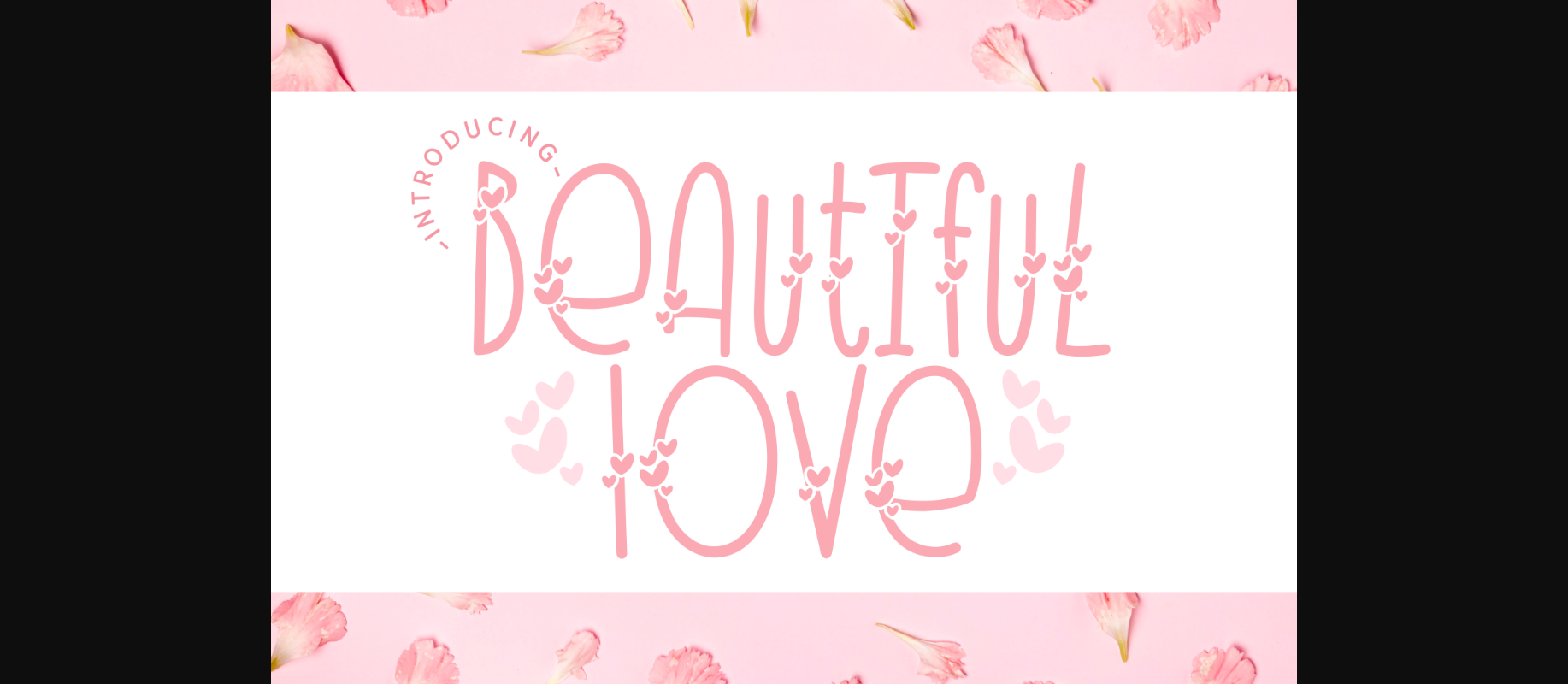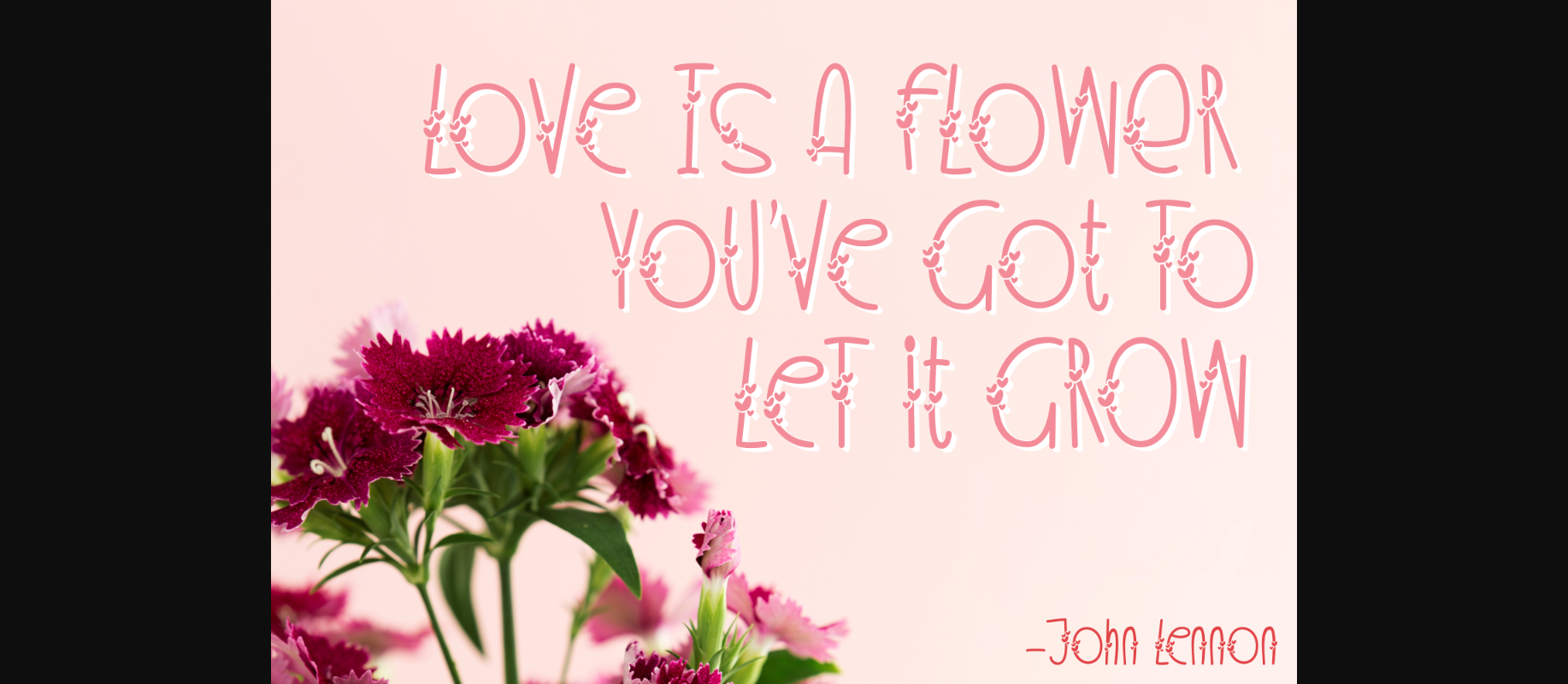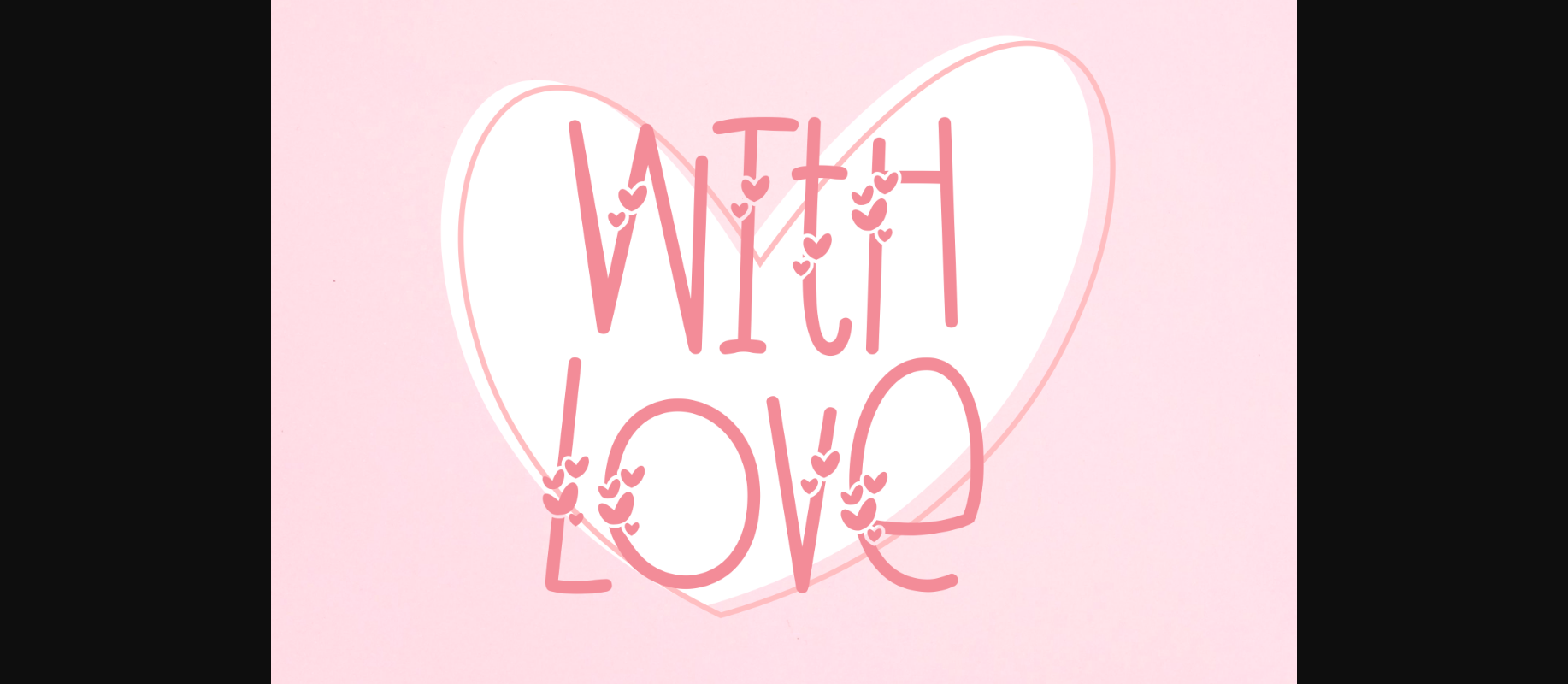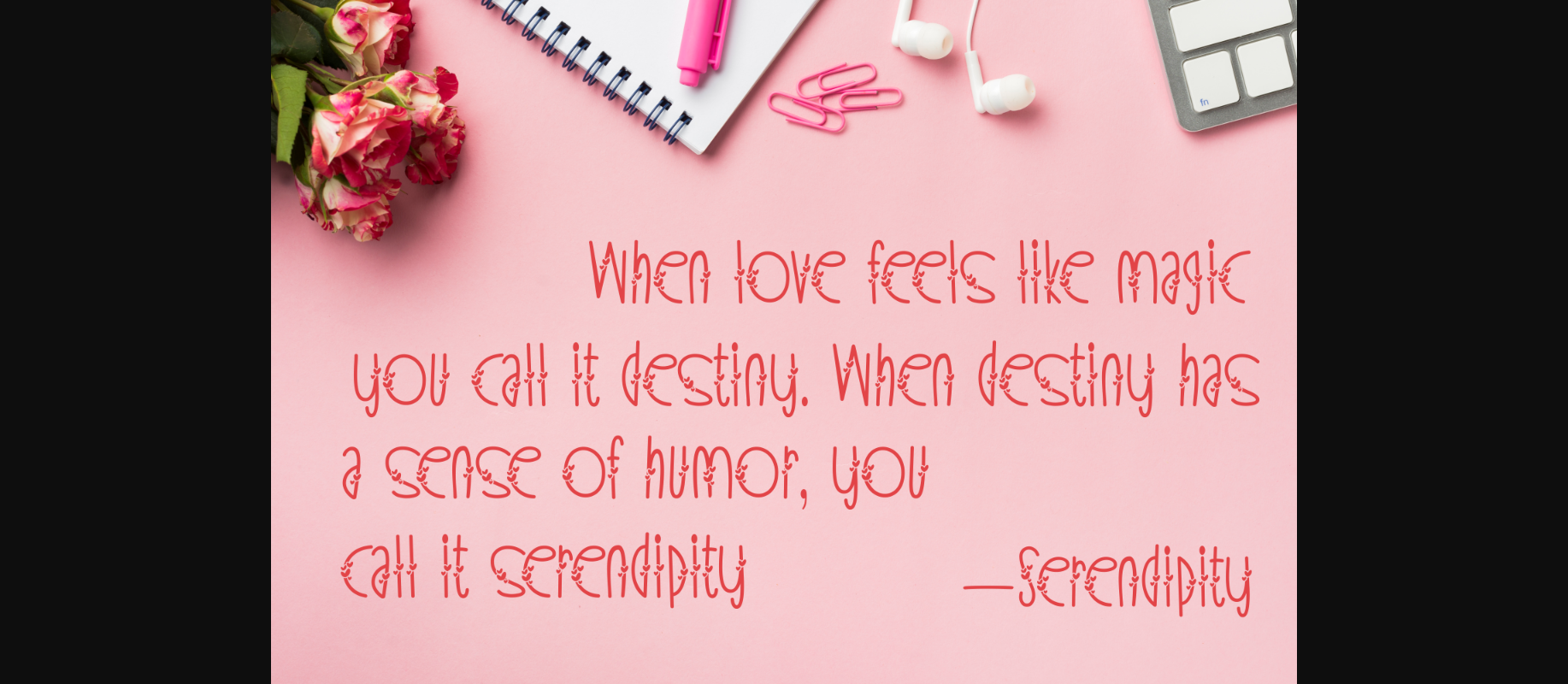
About Beautiful Love Font
Beautiful Love is a magical decorative font carefully created with a touch of elegance. Whether you’re looking for fonts for Instagram or calligraphy scripts for DIY projects, this font will turn any creative idea into a true piece of art!